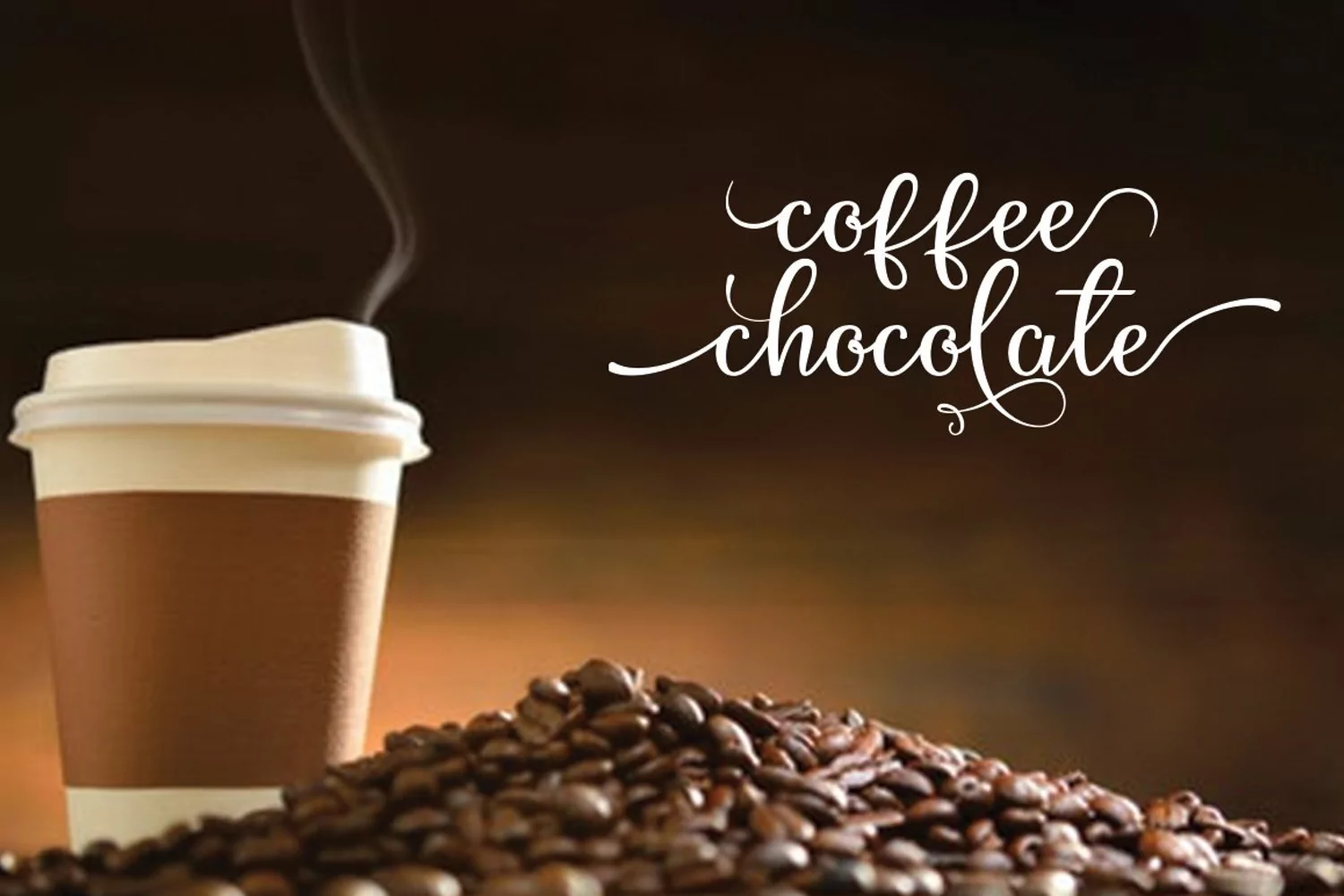
The Legenda Script
Legenda Modern Calligraphy. This font was designed by handwriting, and it has a modern and unique forms of calligraphy, the writing style is very natural.
The Features of this fonts is;
* Standart ligatures
* Stylistic Alternates
* Contextual Alternates